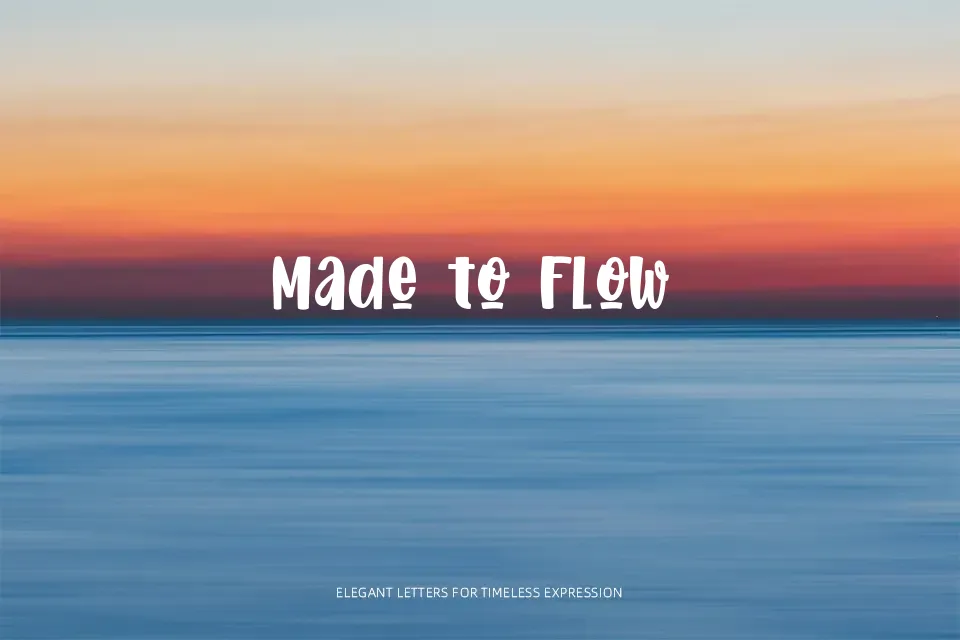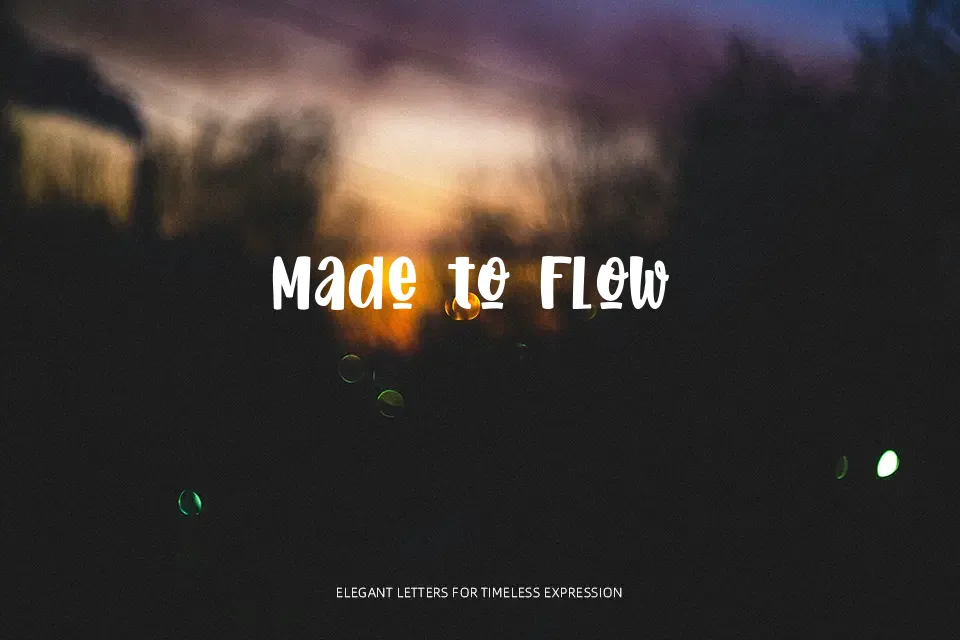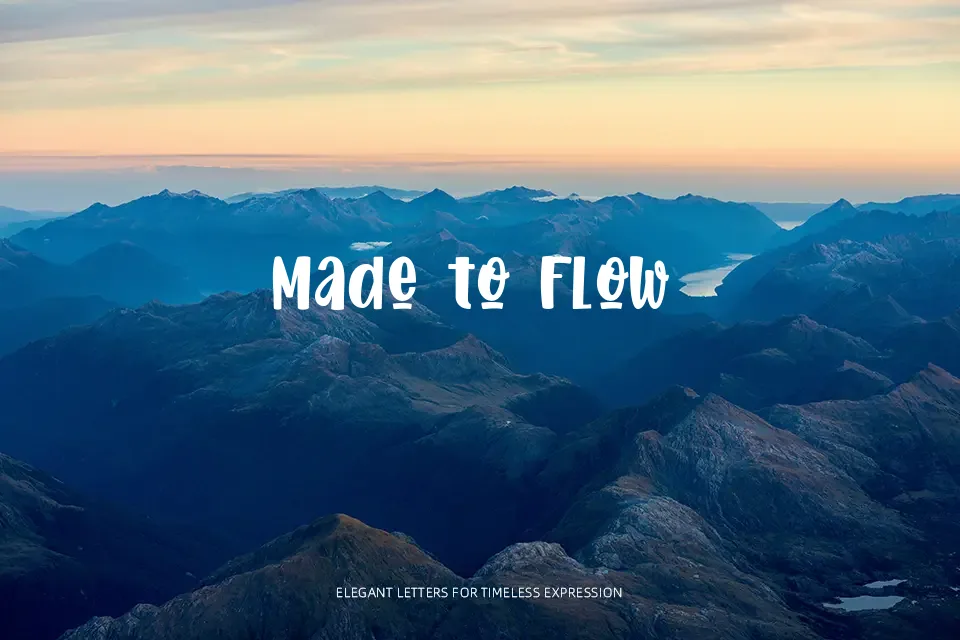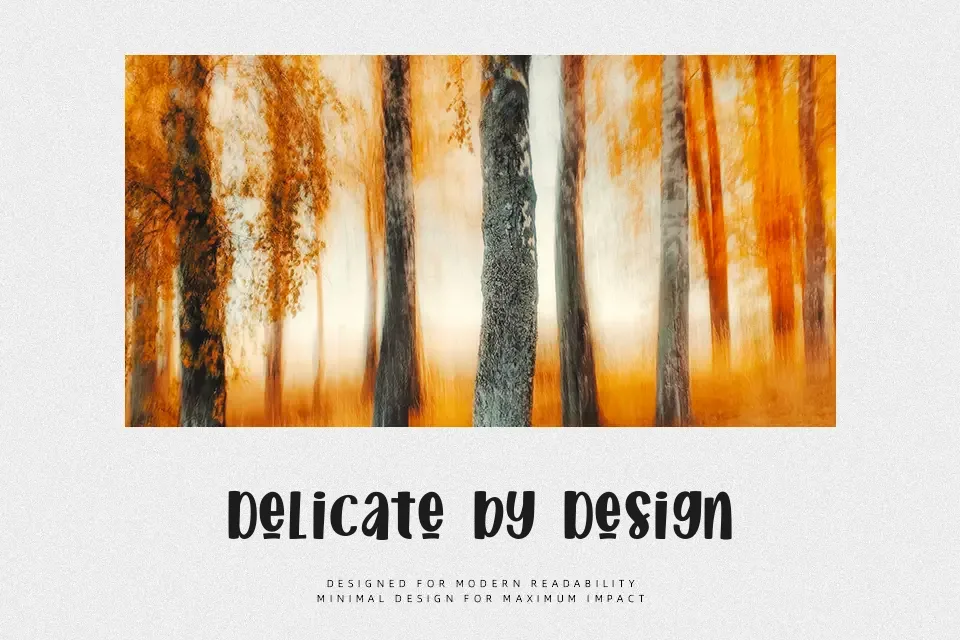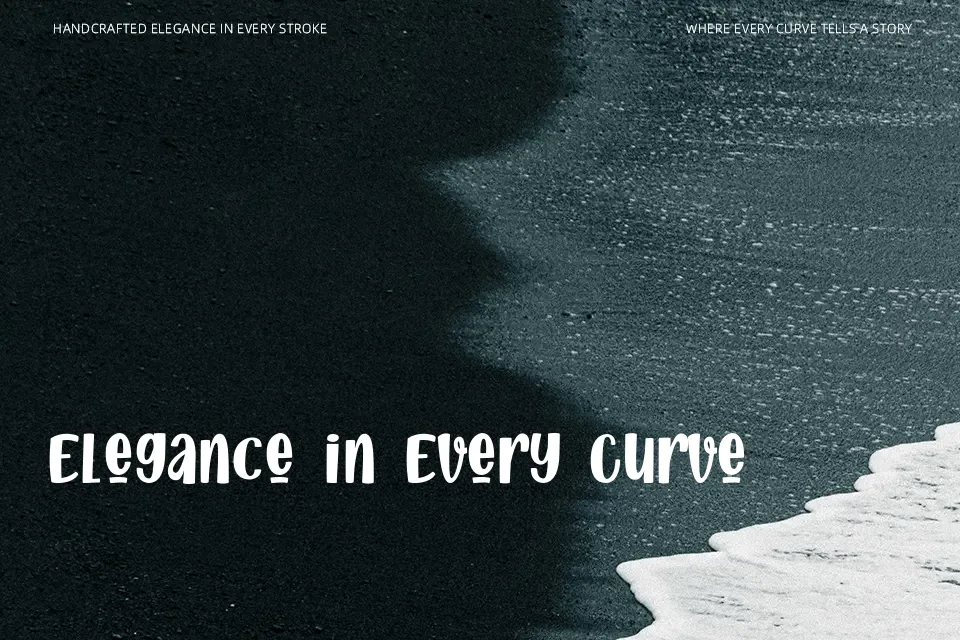
All The Roll Font
Loose, flowing letterforms with noticeable stroke variation and generous curves define All The Roll’s character. The font carries an informal elegance — not stiff calligraphy, but not chaotic brush lettering either. It sits somewhere between handwritten warmth and deliberate craftsmanship, making it a natural fit for wedding stationery headers, artisan product packaging, or social media quote graphics. One genuinely useful feature: PUA encoding enables swash characters and ligatures accessible directly through glyph panels in Illustrator or similar tools. That said, the decorative nature means it breaks down fast at small sizes — body text usage is out of the question, and anything below 24pt risks losing legibility entirely. For personal and non-profit projects, it delivers well above its free-tier expectations.
– Wedding invitation headers and save-the-dates
– Boutique product label titles
– Social media quote card overlays
– Artisan café or bakery branding mockups
– Body text or long-form reading
– Corporate or legal documents
– Small-size applications under 24pt
– Digital UI labels or navigation elements
Perfect for branding, invitation, and packaging, with a artistic and calligraphy style.